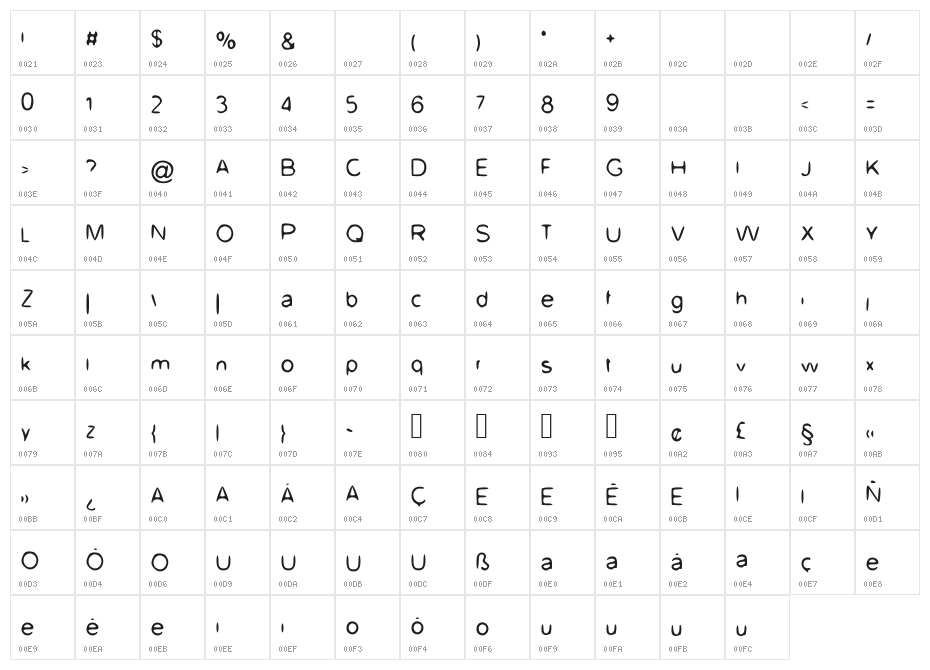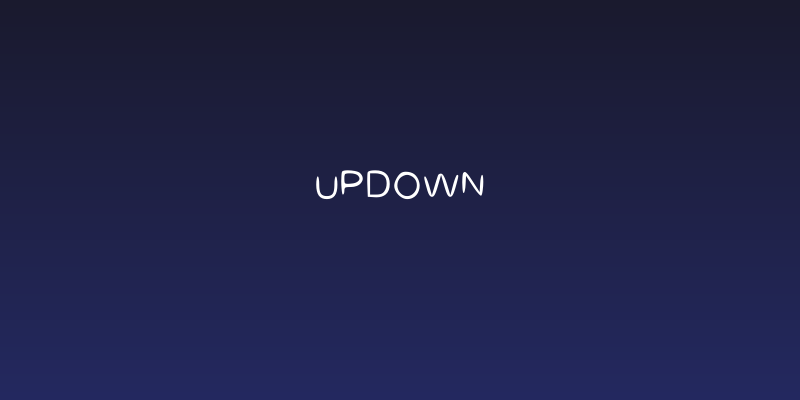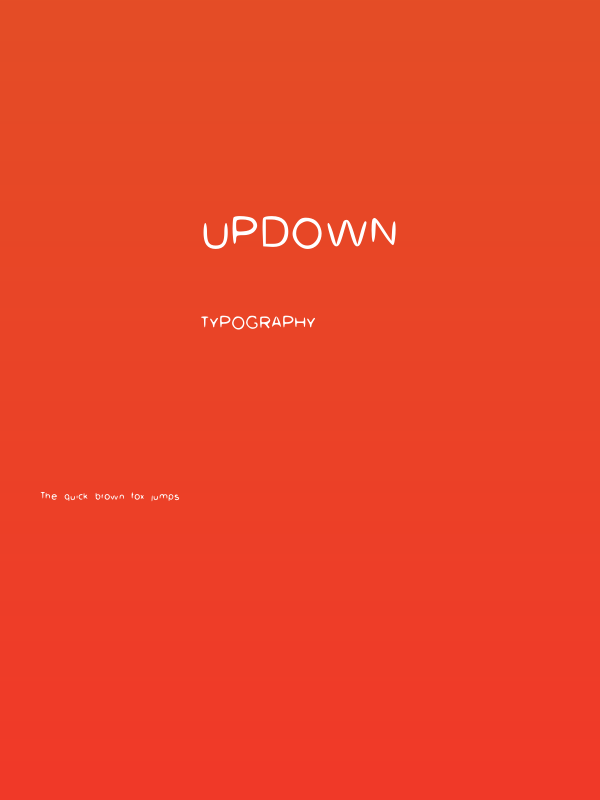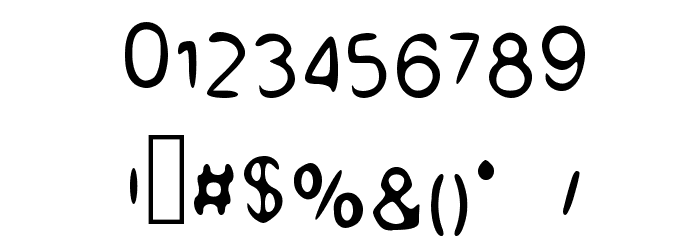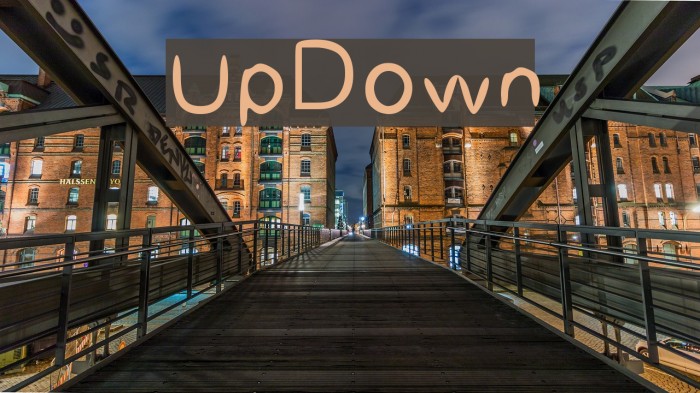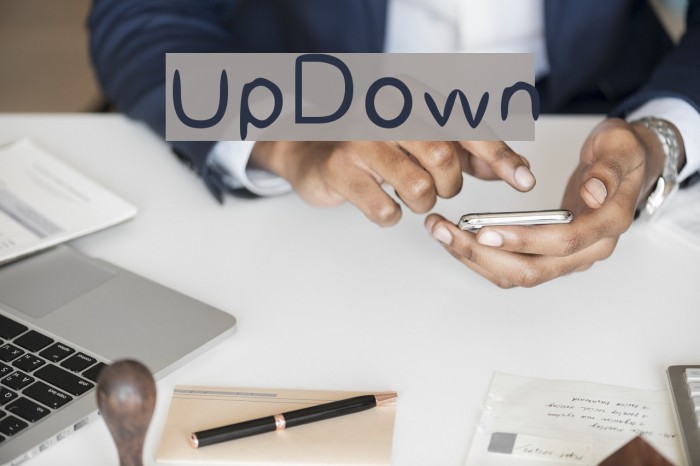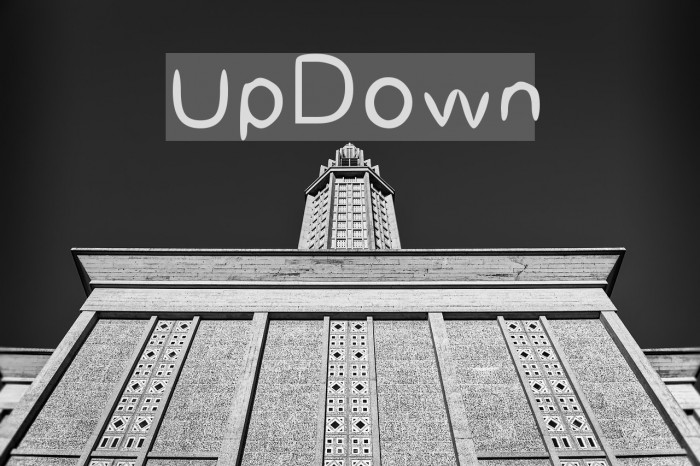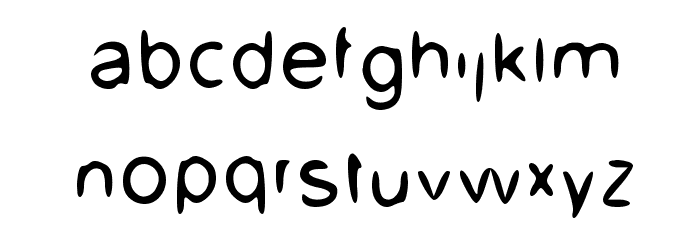
UpDown Font
UpDown Description
This playful and whimsical font features rounded, irregular shapes that give it a hand-drawn appearance. The letters have a consistent stroke width, creating a uniform look while maintaining a casual and friendly vibe. The characters are slightly tilted, adding to the informal and dynamic feel of the font. The numbers and special characters follow the same style, ensuring cohesion across all elements. This font is ideal for projects that require a touch of fun and creativity, such as children's books, playful branding, or casual invitations.
| Overall Style | Whimsical |
| Proposed Projects | Children's books, playful branding, casual invitations, creative posters. |